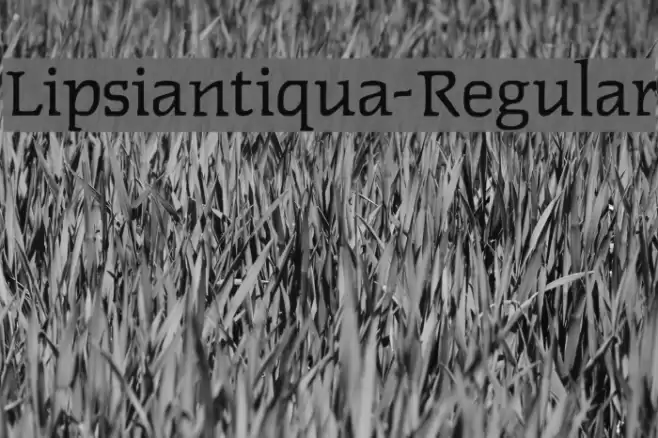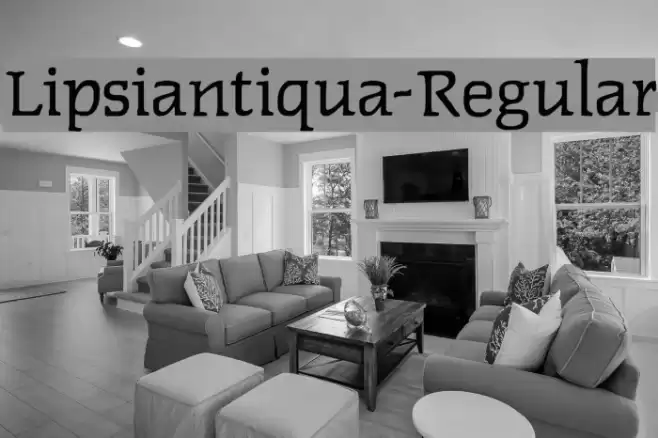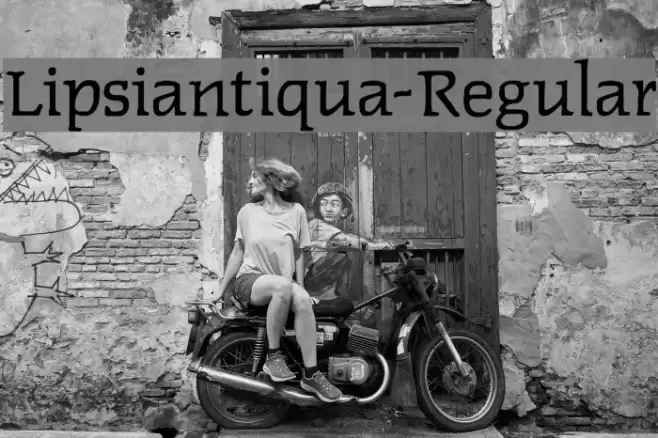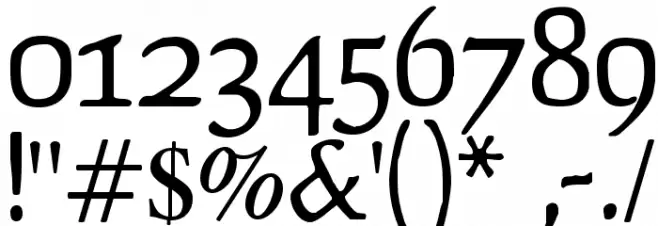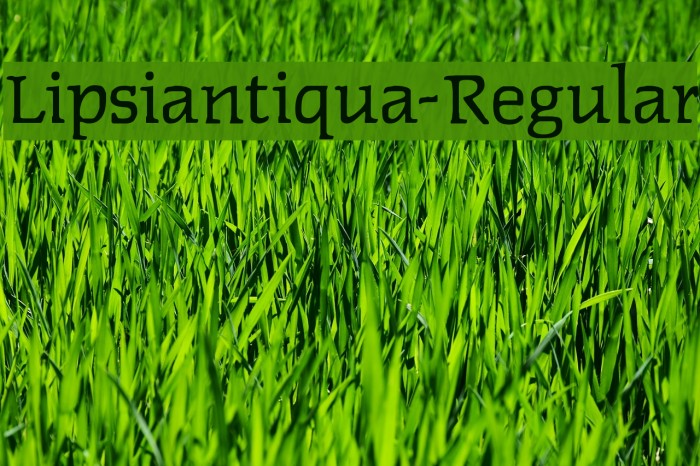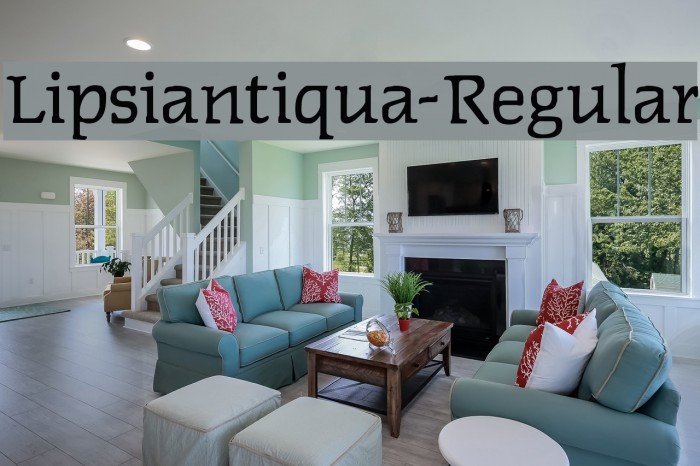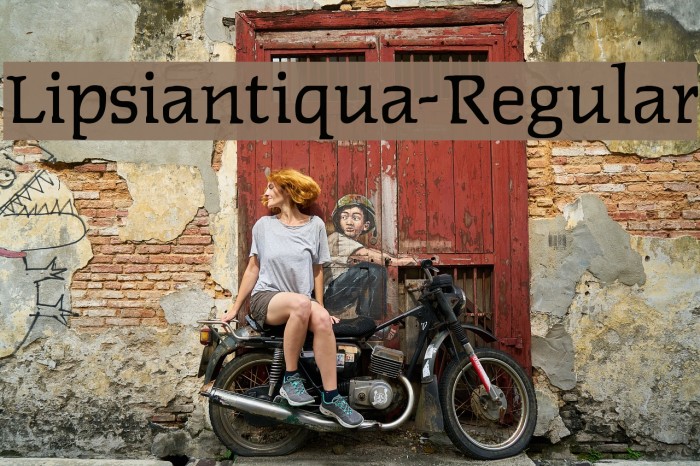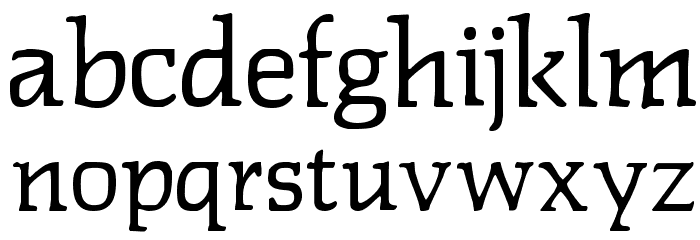
Lipsiantiqua-Regular Font
Lipsiantiqua-Regular Description
This font features a classic serif style with a touch of elegance and sophistication. The uppercase letters are bold and commanding, with a slight curvature that adds a unique flair. The lowercase letters maintain a consistent style, offering a harmonious blend of traditional and modern elements. The numerals are distinct and easily readable, while the special characters are crafted with precision, ensuring versatility in various design contexts. The overall design is balanced, making it suitable for both formal and creative applications.
A classic serif font with elegant curves and a modern touch from Uncategorized fonts.
- Proposed Projects: Ideal for book covers, editorial design, branding, and formal invitations.
- Overall Style: Classic